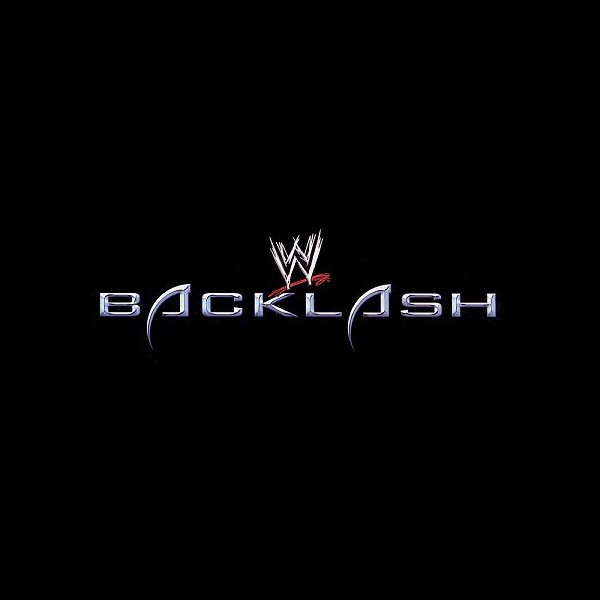
Backlash Font
Fonts in UseBacklash was a professional wrestling pay-per-view event produced by the World Wrestling Federation (WWF). It featured intense rivalries and high-stakes matches.
The Backlash font closely resembles the lettering used in the WWE Backlash logotype. It includes uppercase letters, numbers, and punctuation marks, and typing "ö" provides access to the scratched double "W" logo. You can download this font for free from the Fonts Used Section.